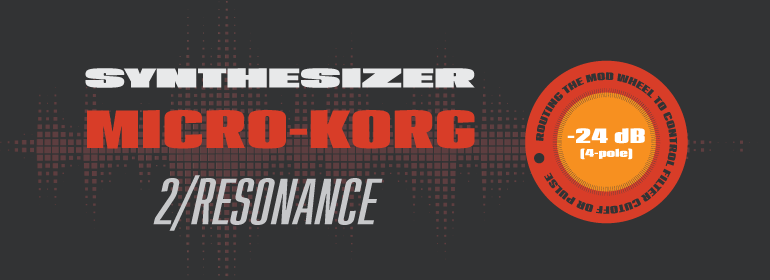
Loft™
字体品牌: Monotype 设计师:Janiszewski,Julien 字体分类:无衬线体 字体属性:外文 字符集:Unicode 发布时间: 2018
Loft is a 21st century type design solution inspired by 19th century fonts. It is structured and modular, yet its solid character shapes hark back to a time when type could be held in your hand. According to Paris-based designer Julien Janiszewski, his ambition for Loft was to create a type family based on a strict hierarchy. I wanted to provide graphic designers with a font suite that would enable them to create systematic solutions." For the design itself, Janiszewski was inspired by wooden type developed during the late 1800s. He was also influenced by the signage reading 'DÉFENSE D'AFFICHER' ('Post No Bills') that is often found in France.
Loft is a large family of seven weights, each with an italic partner. Strikingly, counter widths for all the weights remain the same. As weights increase from Hairline to Mammoth, the characters extend by building stroke thickness outside the counter.
More structural interest comes from the way Janiszewski has handled the stroke terminations. In characters like the e, s, and c, they are cut on the same horizontal plane, while the termination of the vertical strokes and the over-dots of the i and j have been clipped at an angle.
Loft is space-efficient in lighter weights while making an increasingly stronger statement as the designs become heavier. Taken as a whole, the Loft typeface family is distinctive, versatile, and always intriguing."